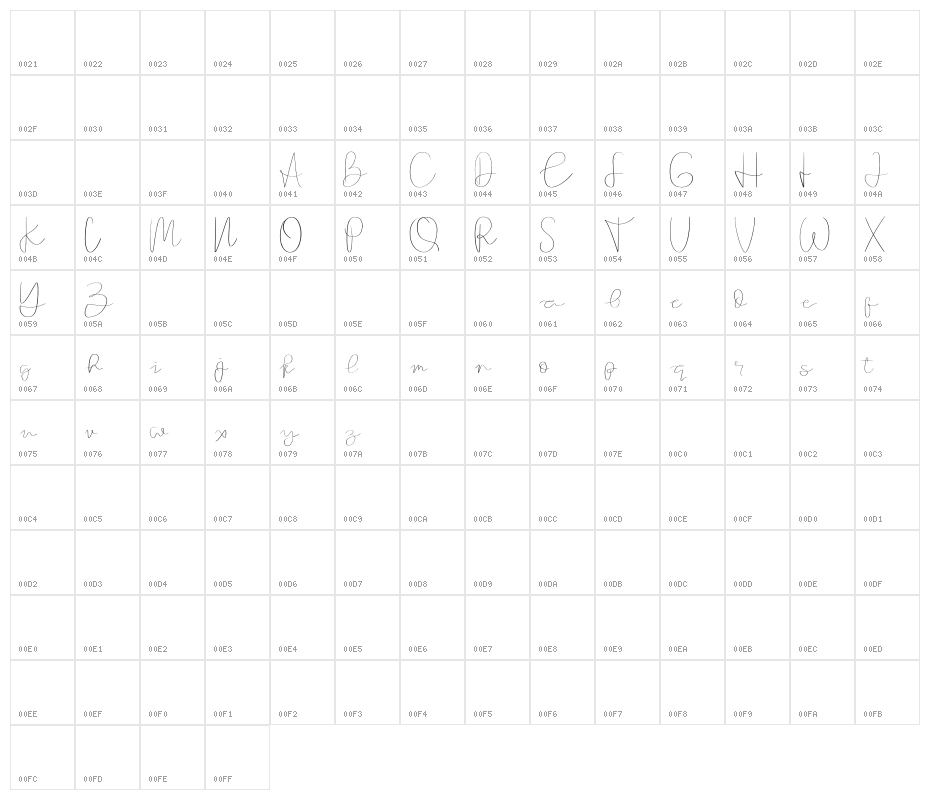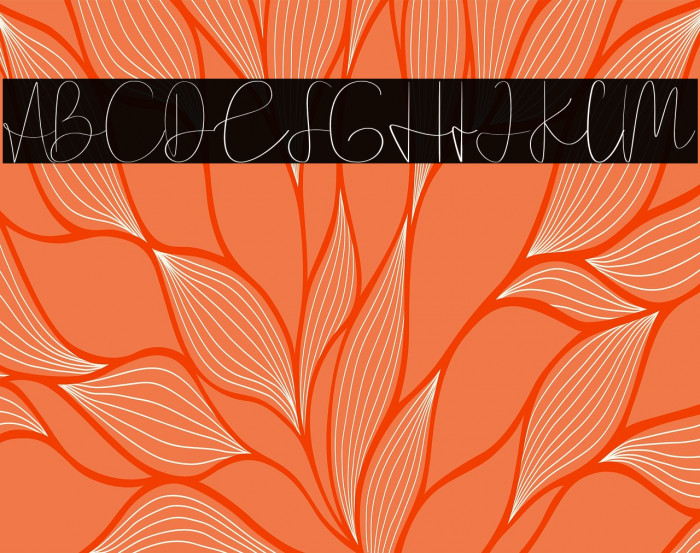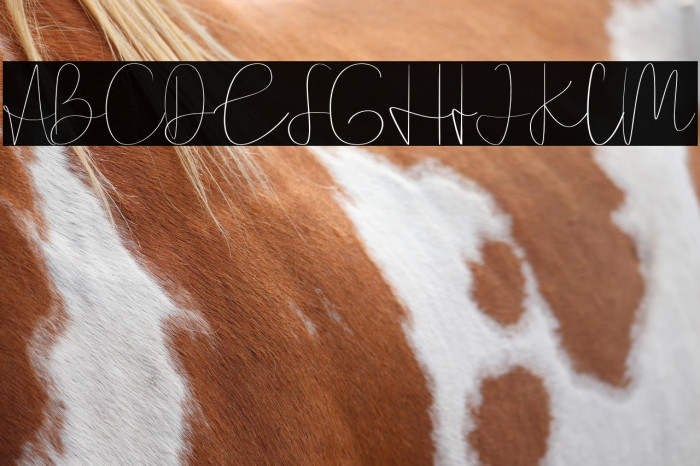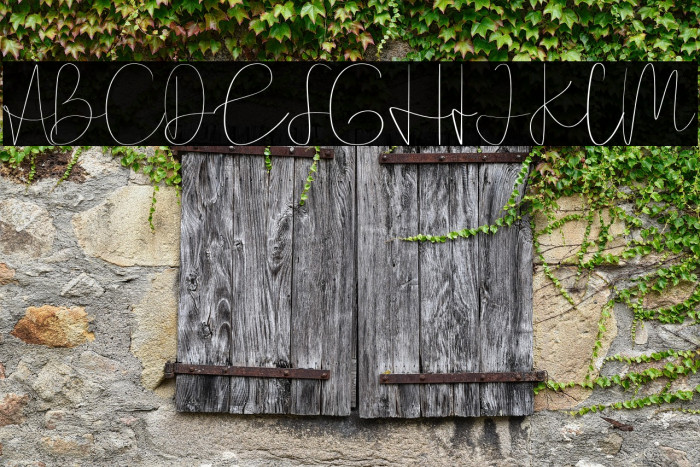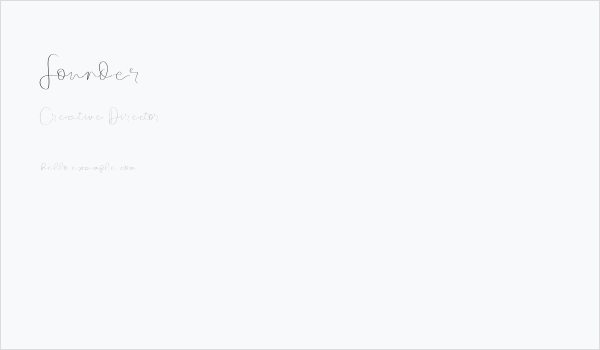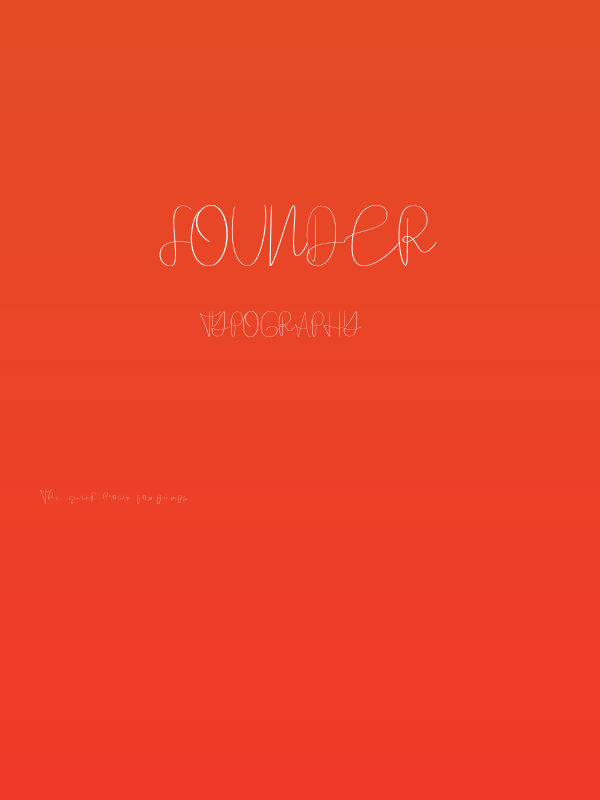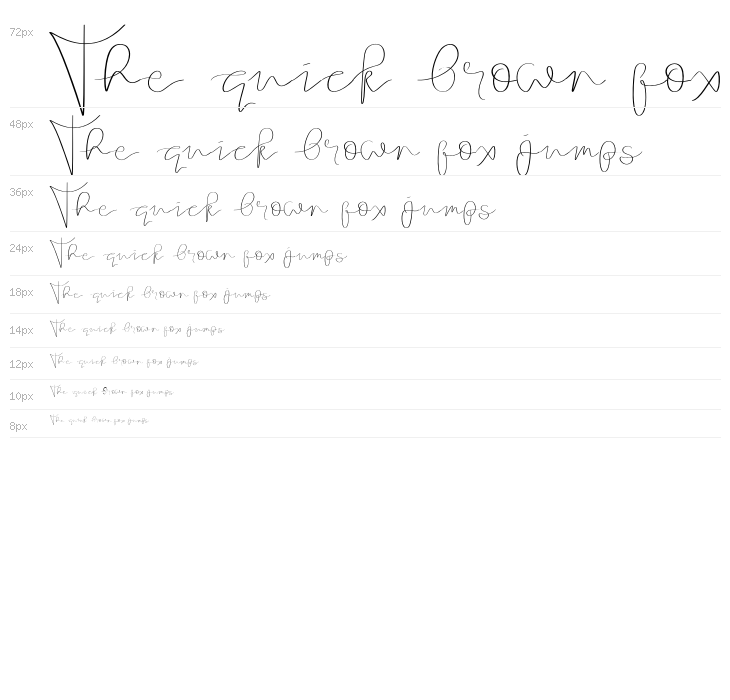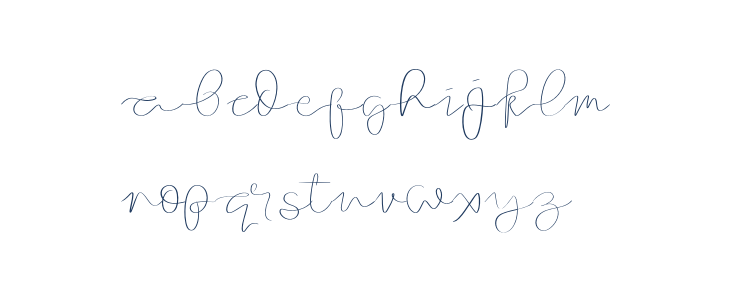
Founder Font
Founder Description
This font features an elegant, flowing script style that mimics the fluidity of cursive handwriting. Each letter is intricately connected, creating a seamless and harmonious appearance. The strokes are thin and delicate, giving the font a light and airy feel. The uppercase letters are slightly more structured, while the lowercase letters exhibit a playful and whimsical character. The overall design is sophisticated and artistic, making it suitable for projects that require a personal and creative touch.
| Overall Style | Elegant, Artistic |
| Proposed Projects | Ideal for wedding invitations, greeting cards, personal branding, and artistic projects. |